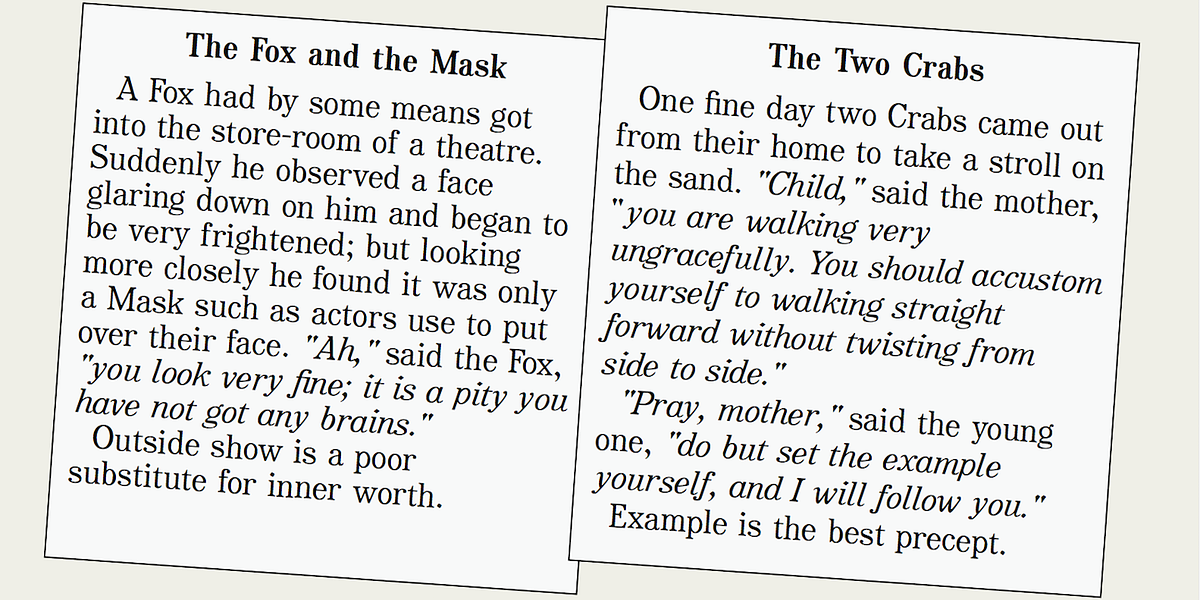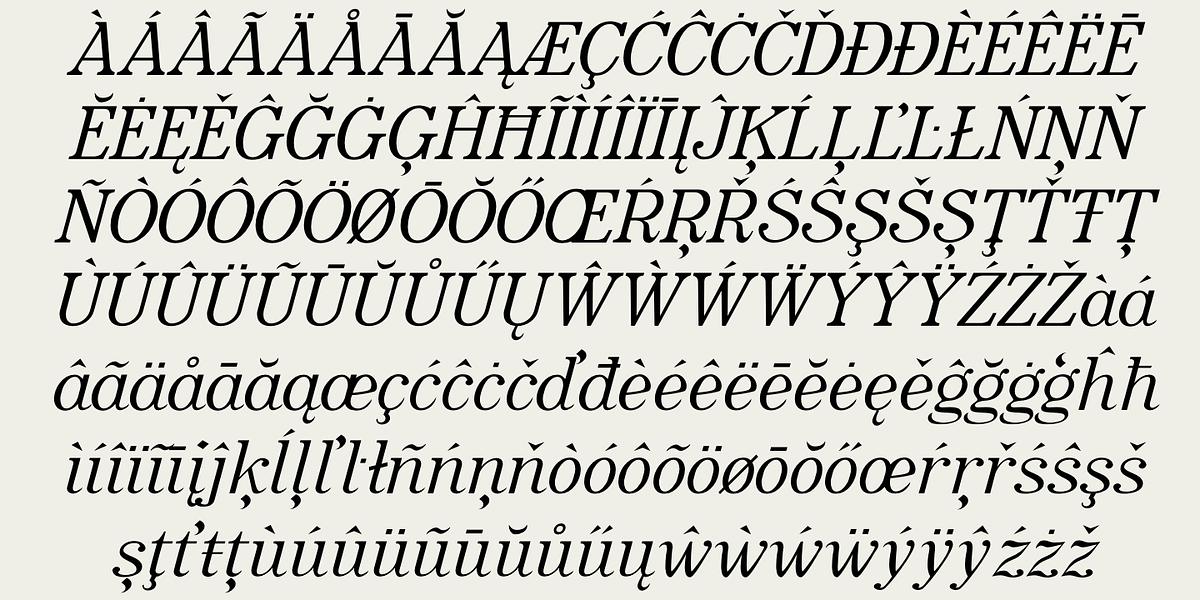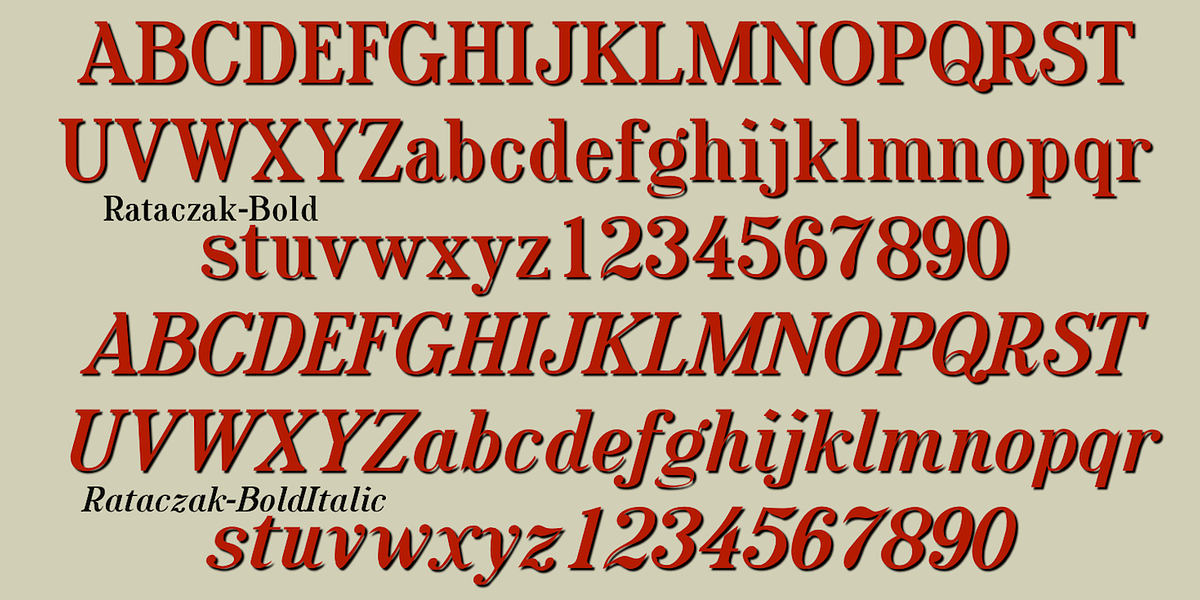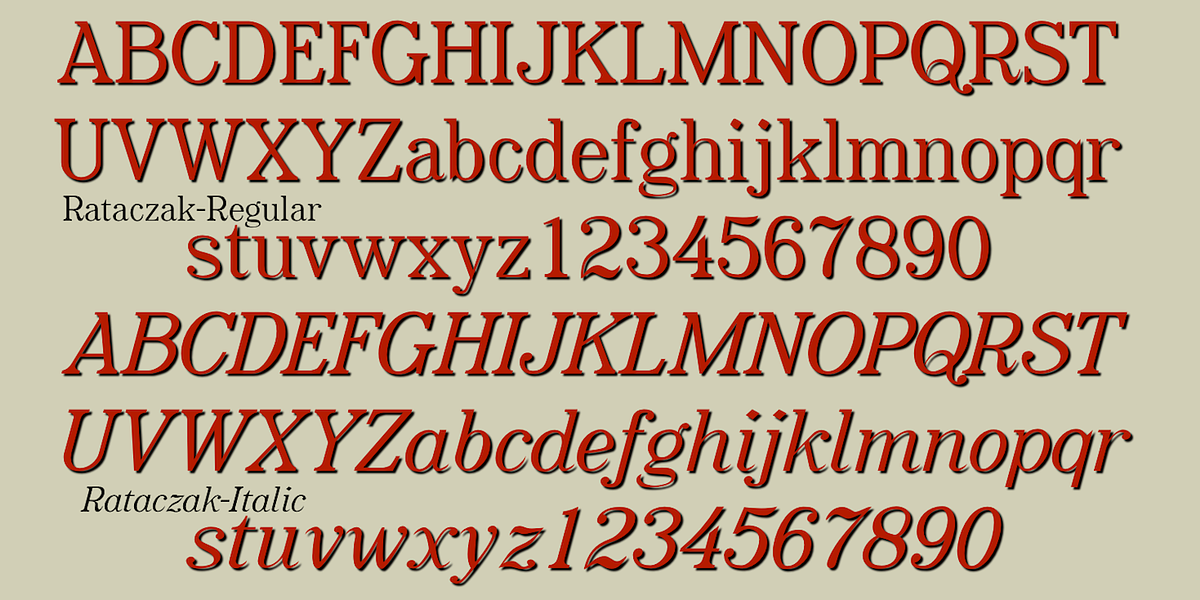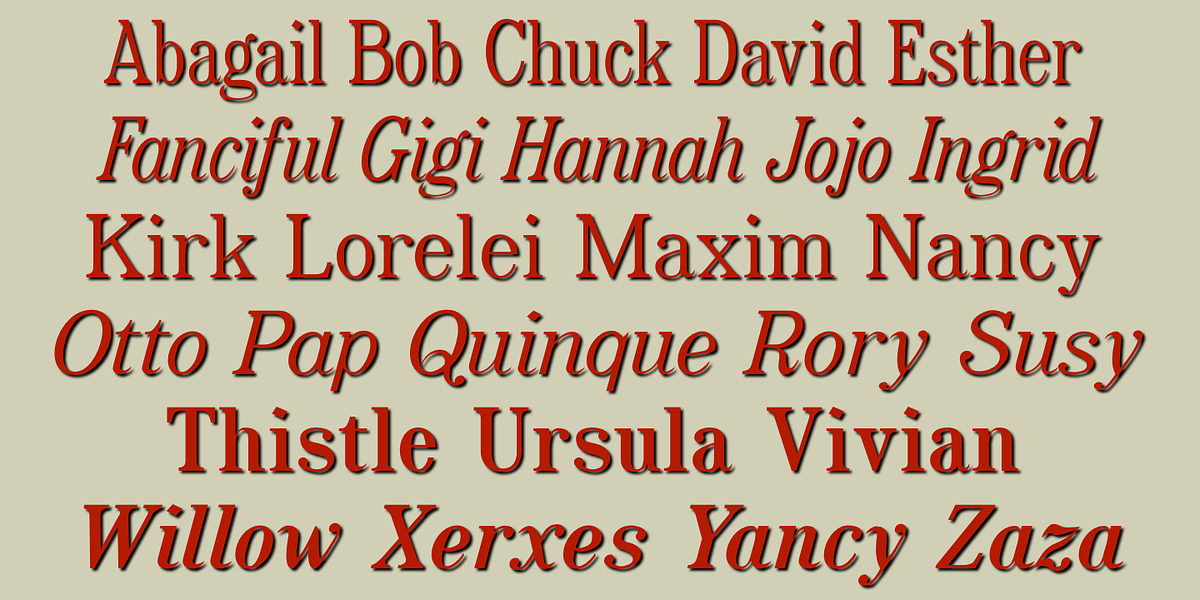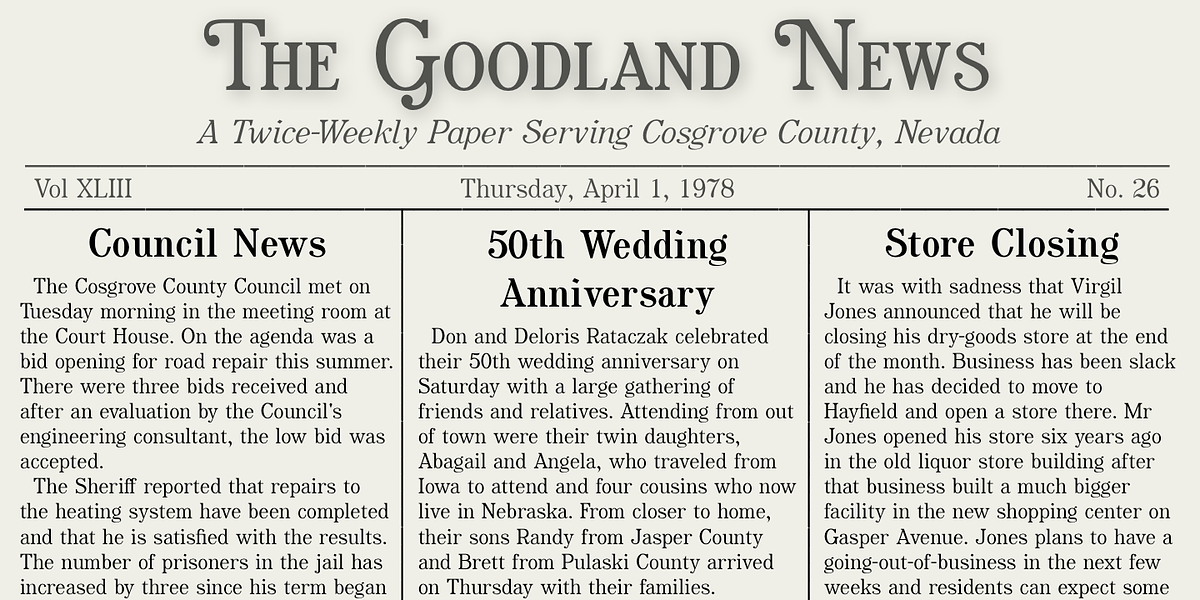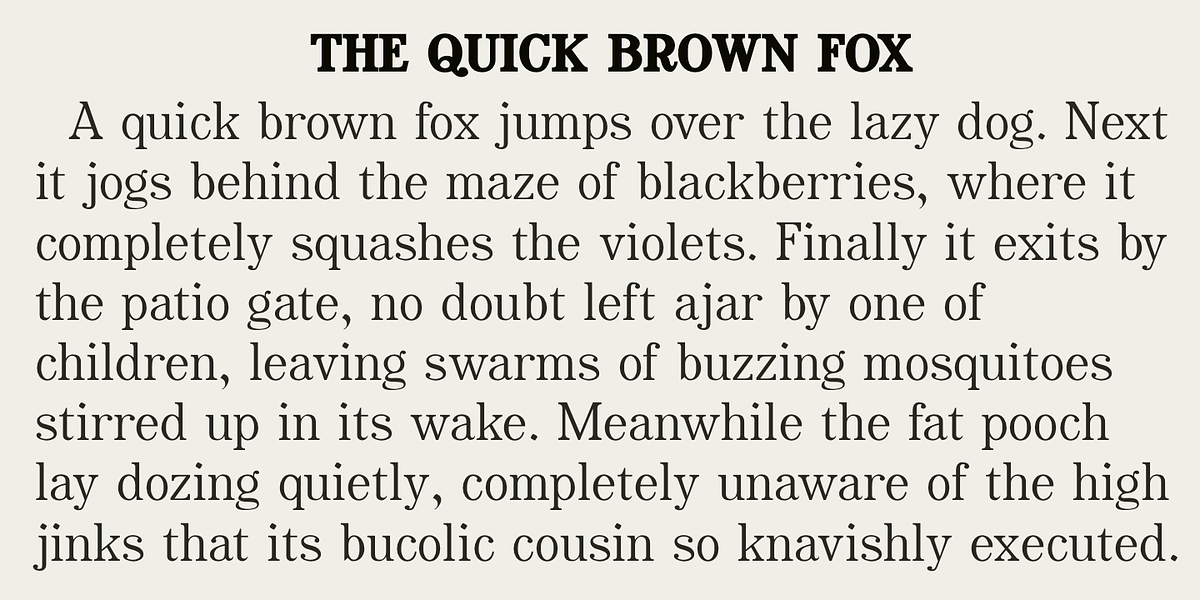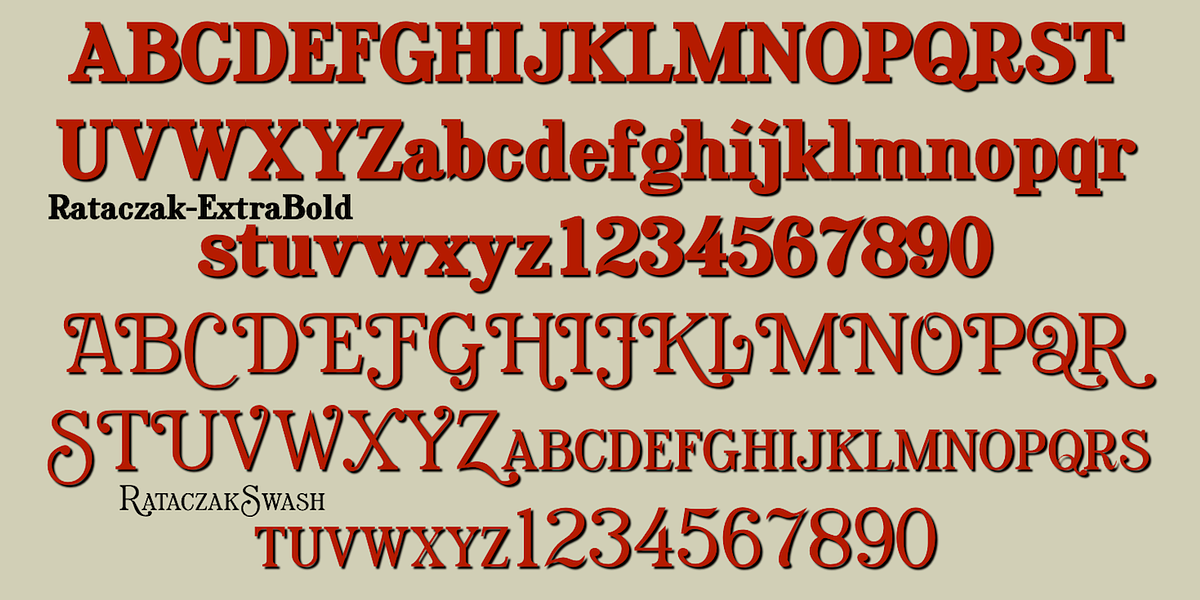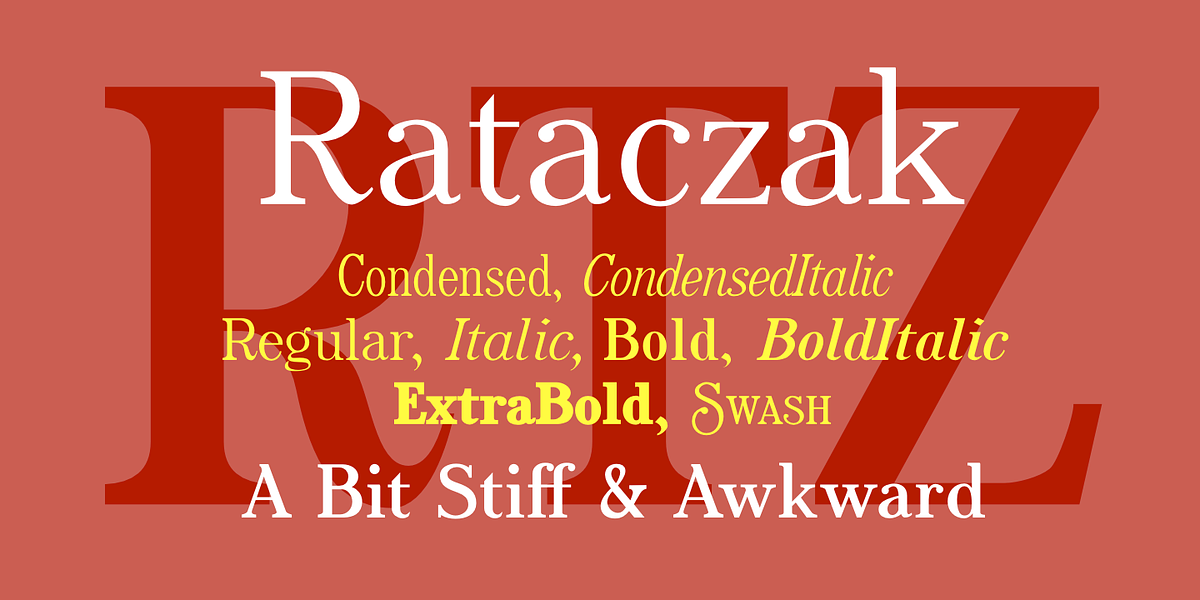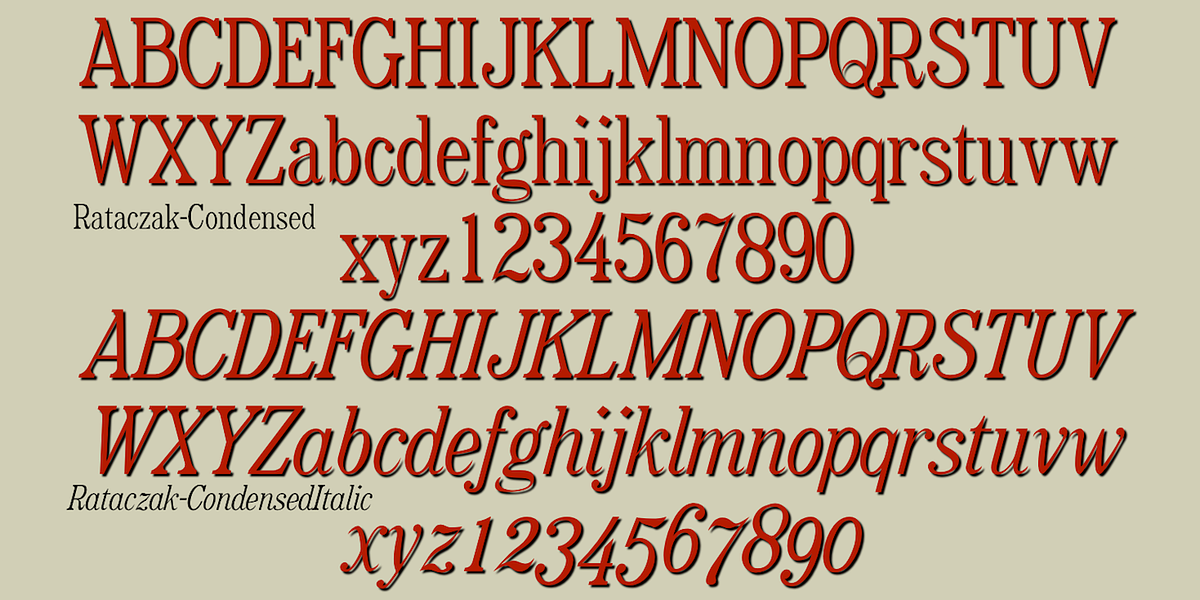
Rataczak
Rataczak is a serif font designed to evoke the style of 19th-century typography. While legible for body text, its stiff and awkward appearance lends it a less graceful quality compared to more modern serif fonts. The font family offers various weights and widths, including condensed styles, as well as a separate font containing swash capitals for decorative emphasis.